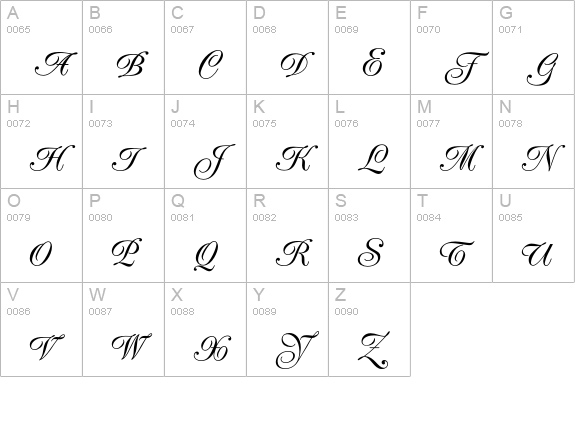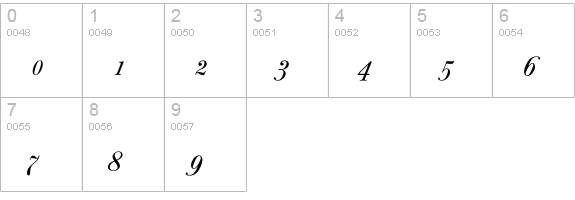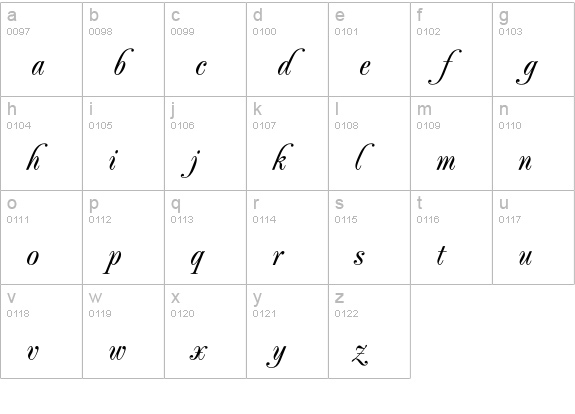
PeachExquisiteOpti Font Details
PeachExquisiteOpti is a stunningly elegant font that effortlessly combines the beauty of delicate peach hues with the exquisite details of fine typography. This unique font is the perfect choice for adding a touch of sophistication and charm to any design project. With its graceful curves and intricate letterforms, PeachExquisiteOpti captivates the eye and commands attention. Each character has been meticulously crafted to ensure a harmonious flow and balance, resulting in a truly mesmerizing typeface. But what sets PeachExquisiteOpti apart is not just its unparalleled beauty, it's also the fact that it is freely available to download at FontsMarket.com. Yes, you read that right! This extraordinary font can be yours at no cost, allowing you to bring a touch of elegance to your designs without breaking the bank. Whether you're designing wedding invitations, branding materials, or simply looking to add a touch of refinement to your personal projects, PeachExquisiteOpti is the perfect choice. Its versatility and timeless appeal make it a must-have for any designer or creative enthusiast. So why wait? Head over to FontsMarket.com and download PeachExquisiteOpti today, and experience the breathtaking beauty of this free font for yourself. Elevate your designs with the elegance and charm that only PeachExquisiteOpti can provide.